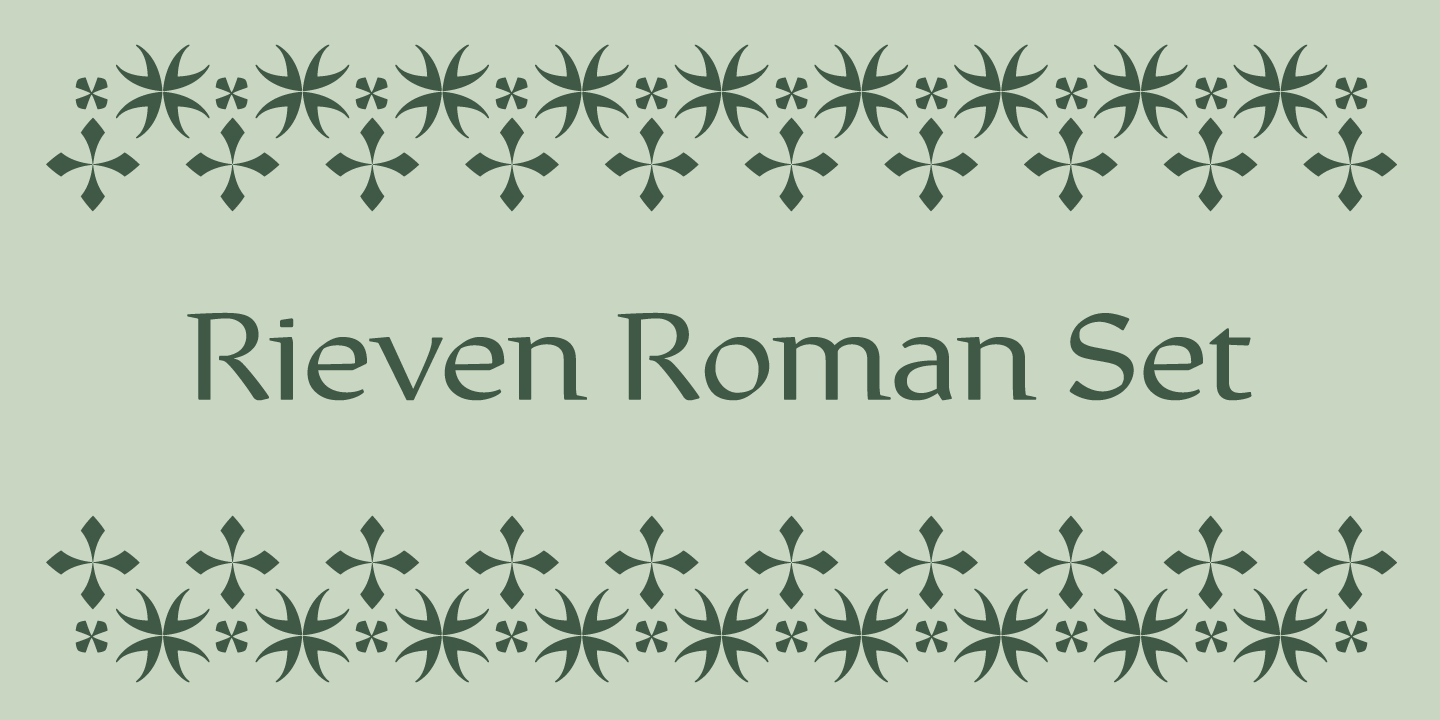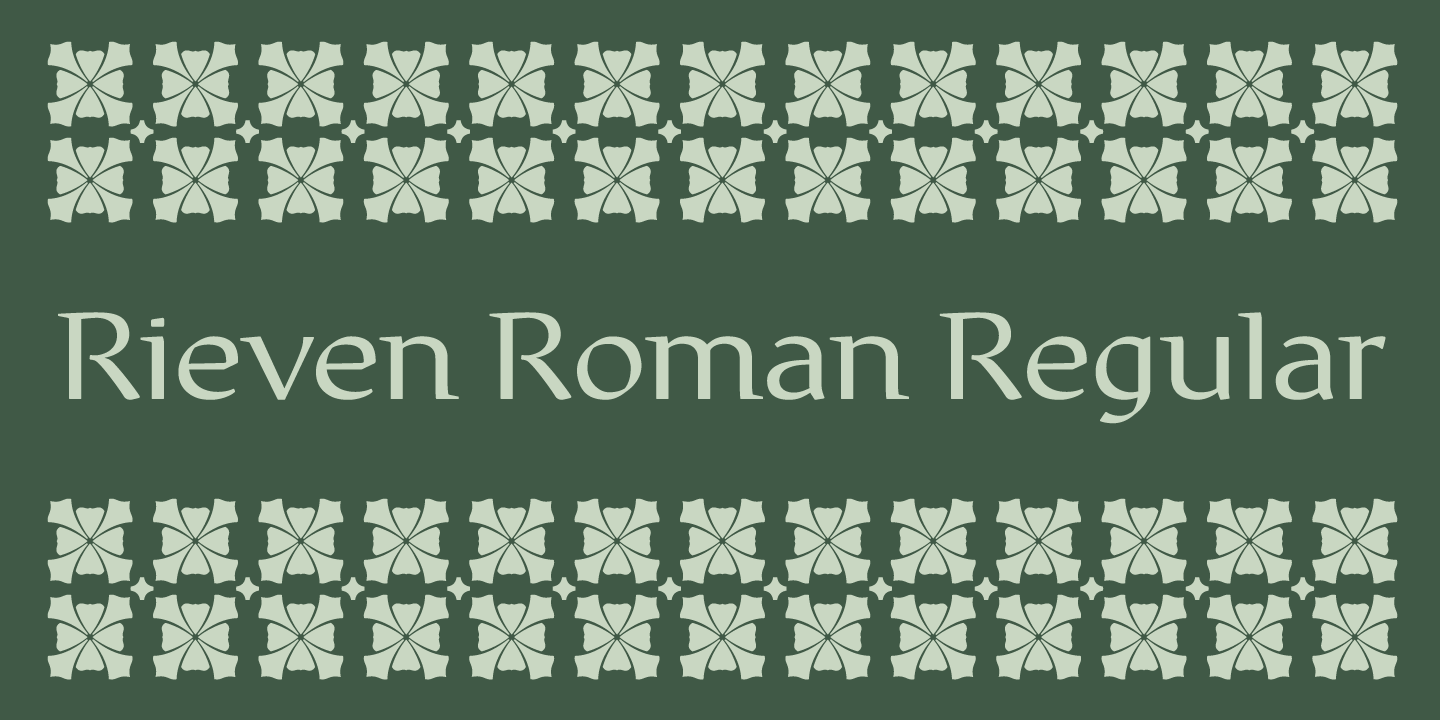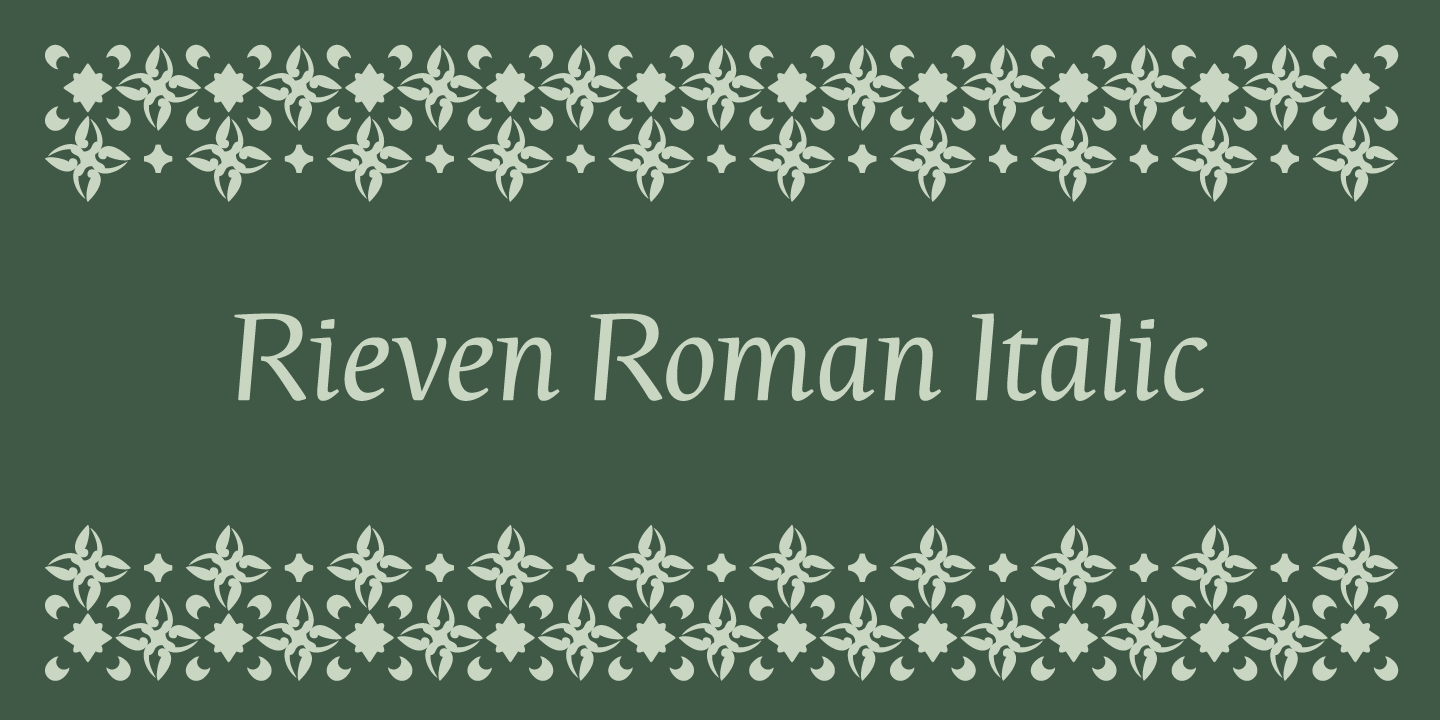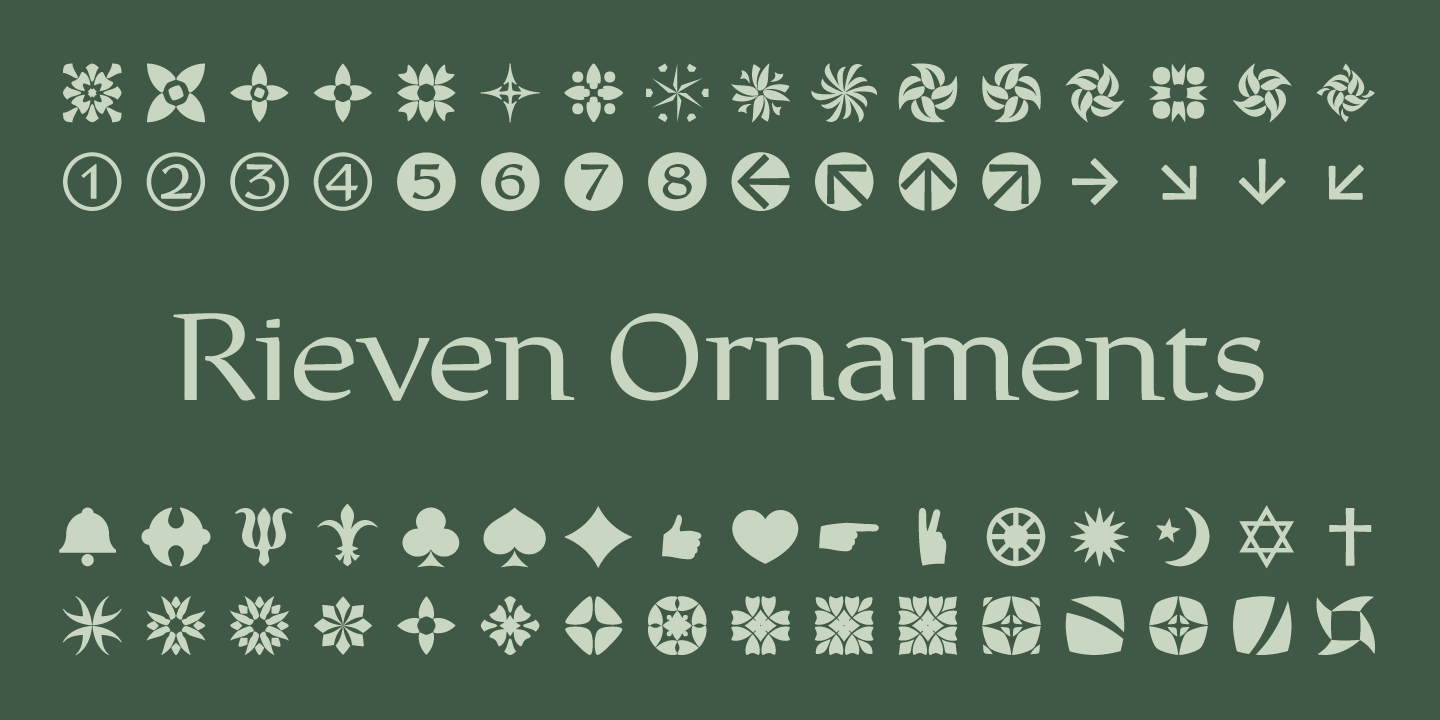
Rieven Roman Set
Designer Steven Skaggs ex­panded the Rieven family by cre­ating a Roman version that can be used hand-in-hand with its pre­deces­sor, Rieven Uncial. Although they share some glyphs in common, the key differences include: replacing the uncial-specific forms in U, a, e, f, and r with more conventional forms. Curved strokes in h, m, n, u, v, and w were revised to be straight. More subtle adjustments were made to g, s, t, et al for consistency with the new roman glyphs.
The accompanying italic works perfectly well with its Roman counterpart, despite being structurally quite dis­tinct from it. Virtually all traces of the uncial forms are removed in the lowercase. Sufficient dif­fer­entiat­ion be­tween the italic and the upright forms of the Roman has been applied to achieve a balanced contrast in text set­tings, which allows for more efficient reading.
Use Rieven Roman for lengthier passages of text in maga­zines, books, and websites. Let the distinctive spirit of Rieven shine in packaging, signage, and games. Use it in tan­dem with Rieven Uncial for a con­sistent style, with optimal readability.